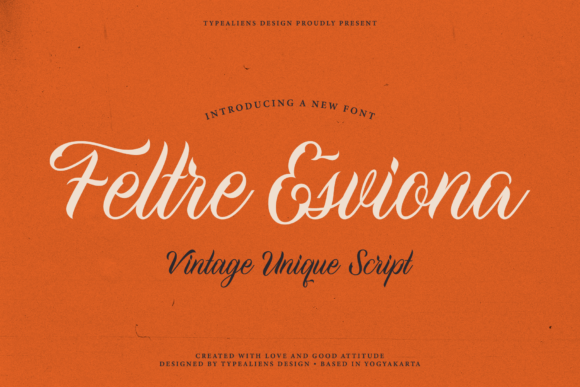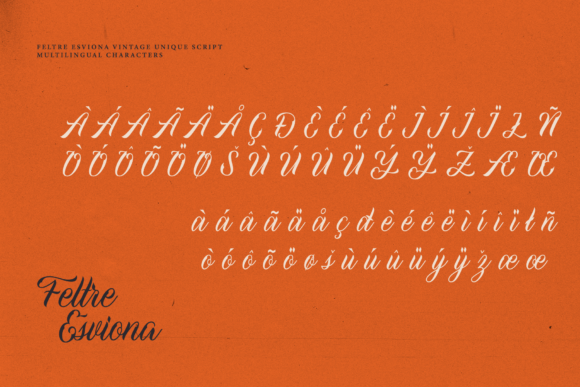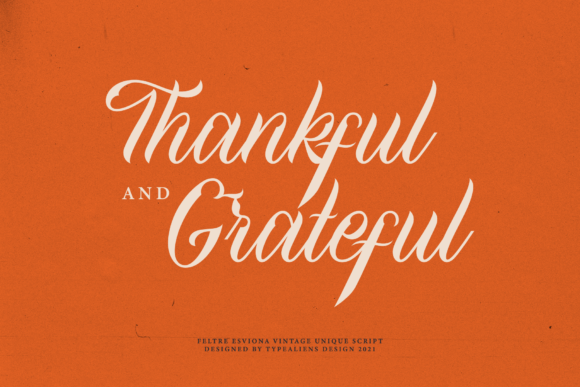
About Feltre Esviona Font
Feltre Esviona is a well balanced and elegant script font. It looks stunning on wedding invitations, thank you cards, quotes, greeting cards, logos, business cards and every other design which needs a handwritten touch.